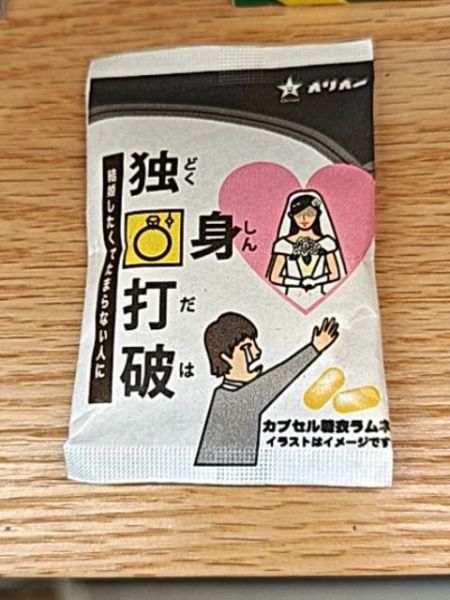
Marriage Support Capsules
These capsules are designed to support individuals in their pursuit of marriage or romantic partnerships.
The typography consists of a combination of bold Japanese kanji and hiragana characters, giving a traditional yet modern look. The font style is clean and easy to read, with the use of larger characters for emphasis, enhancing the package's visual hierarchy.
The packaging features a minimalist design with a cartoonish illustration of a couple, a man and a woman, in front of a heart. The color scheme is primarily black, white, and pink, giving it a playful and approachable appearance.
- The product is marketed towards individuals seeking romantic partnerships.
- The packaging includes cartoon illustrations to represent marriage and romance.
- It contains capsules as the main form of the product.